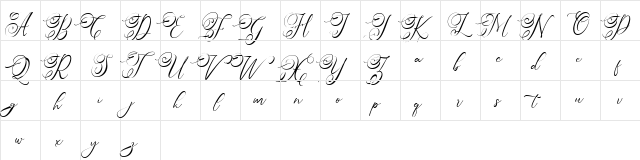
Simply Harmony FREE Regular
| Foundry | Vunira Design |
| Designer | Vunira Design |
Design Context for Simply Harmony FREE Typeface
Simply Harmony FREE is a composed and adaptable typeface that performs quietly and consistently across a wide range of design contexts.